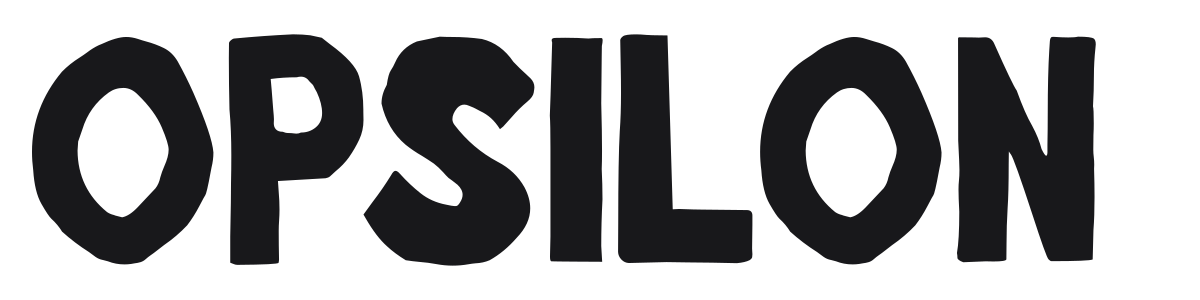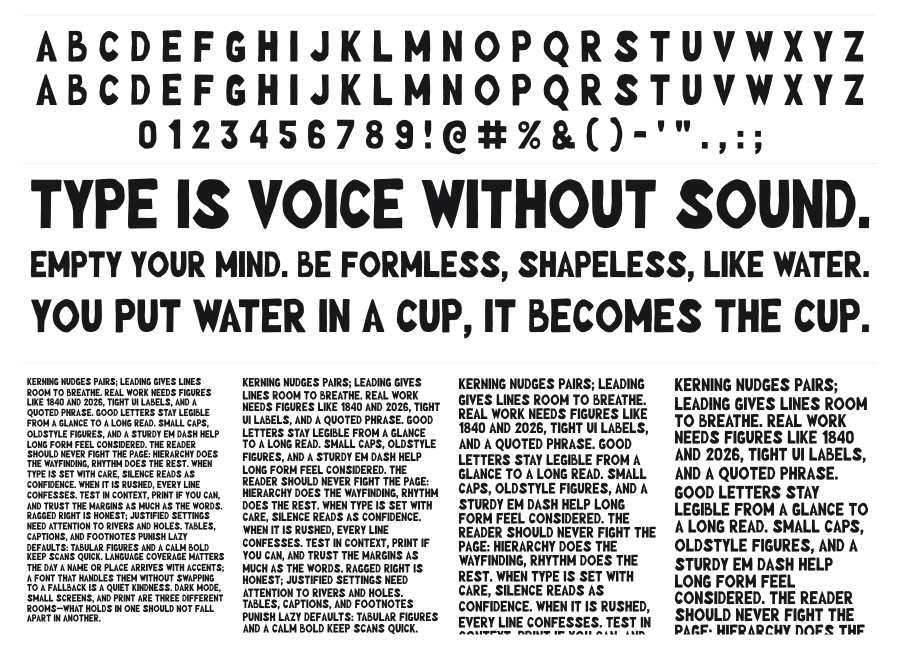
Opsilon
Opsilon is a heavy display sans with a hand-drawn cartoon personality, built from thick, chunky strokes with pleasingly wobbly edges. Each character has just enough organic irregularity to feel spontaneous without sacrificing legibility. It suits headlines, game UI, packaging, and anywhere a bold, fun voice is needed.